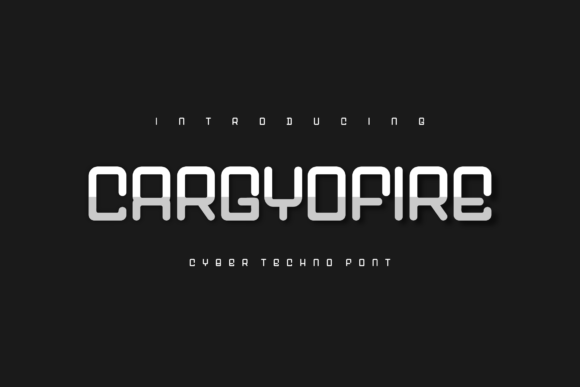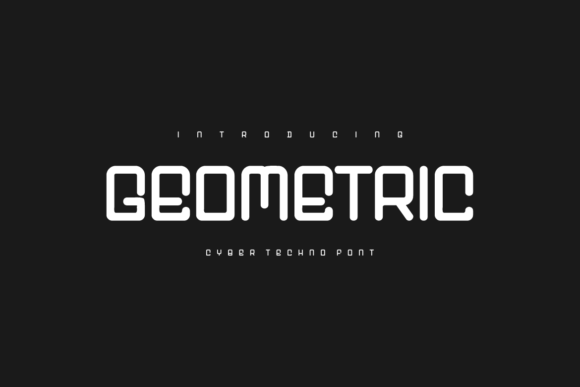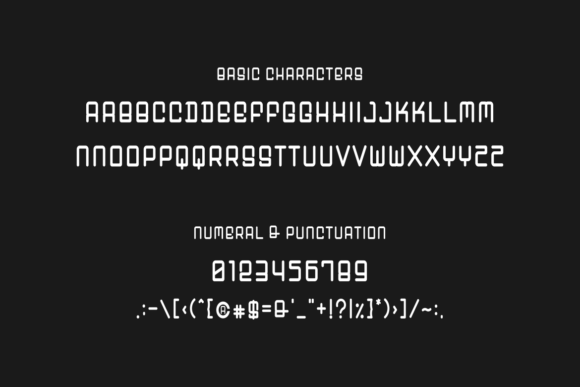
The Perfect Typographic Match for Your Next Creative Project
Have you ever found yourself stuck in front of a blank page, staring at a blank slate, waiting for the perfect font to spark your creativity? For designers, this moment is all too familiar. It’s the moment when the right font can make or break a project, and that’s exactly what we’re here to talk about – the Cargyofire Font.
This modern and bold sans serif typeface is designed to make a statement. Whether you’re working on a fashion project, creating a logo, or designing an album cover, Cargyofire Font is the perfect addition to your toolkit. With its versatility and bold character, it’s no wonder why designers are falling in love with this font. The Cargyofire Font is a valuable asset for any designer looking to elevate their projects and take their work to the next level.
Cargyofire Font Key Features
- Character Set: This font includes a comprehensive set of characters, including uppercase and lowercase letters, numbers, punctuation marks, and special symbols, making it ideal for a wide range of applications.
- Unique Characteristics: Cargyofire Font features a unique blend of modern and vintage elements, with bold lines, geometric shapes, and intricate details that set it apart from other fonts.
- Font Weight and Style: This font includes a range of font weights, from Light to Extra Bold, and various font styles, including Regular, Italic, and Bold Italic, providing flexibility for designers and typographers.
Cargyofire Font Review
At first glance, the Cargyofire font has some really great features that caught my attention. ✨ I love how it combines modern and futuristic elements to create a unique aesthetic. The font is perfect for anyone looking to add a touch of edginess to their designs. ✨ The bold weights are particularly impressive, adding depth and dimension to any text.
- The font’s versatility is a major plus. It works well for both digital and print applications, making it a great addition to any designer’s toolkit.
- The ligatures and swashes add a nice touch of elegance, making it suitable for high-end branding and packaging projects.
However, there are some limitations to consider. ⚠️ The font’s readability can be a bit of an issue at smaller sizes, which may limit its use for body text or smaller-scale projects. Additionally, the font’s complexity may make it difficult to pair with other fonts, requiring some trial and error to find the perfect match.
Overall, I would give the Cargyofire font 4 out of 5 stars. While it has some limitations, its unique aesthetic and versatility make it a great addition to any designer’s toolkit. With some careful consideration and planning, I’m confident that this font can help designers create some truly stunning designs.